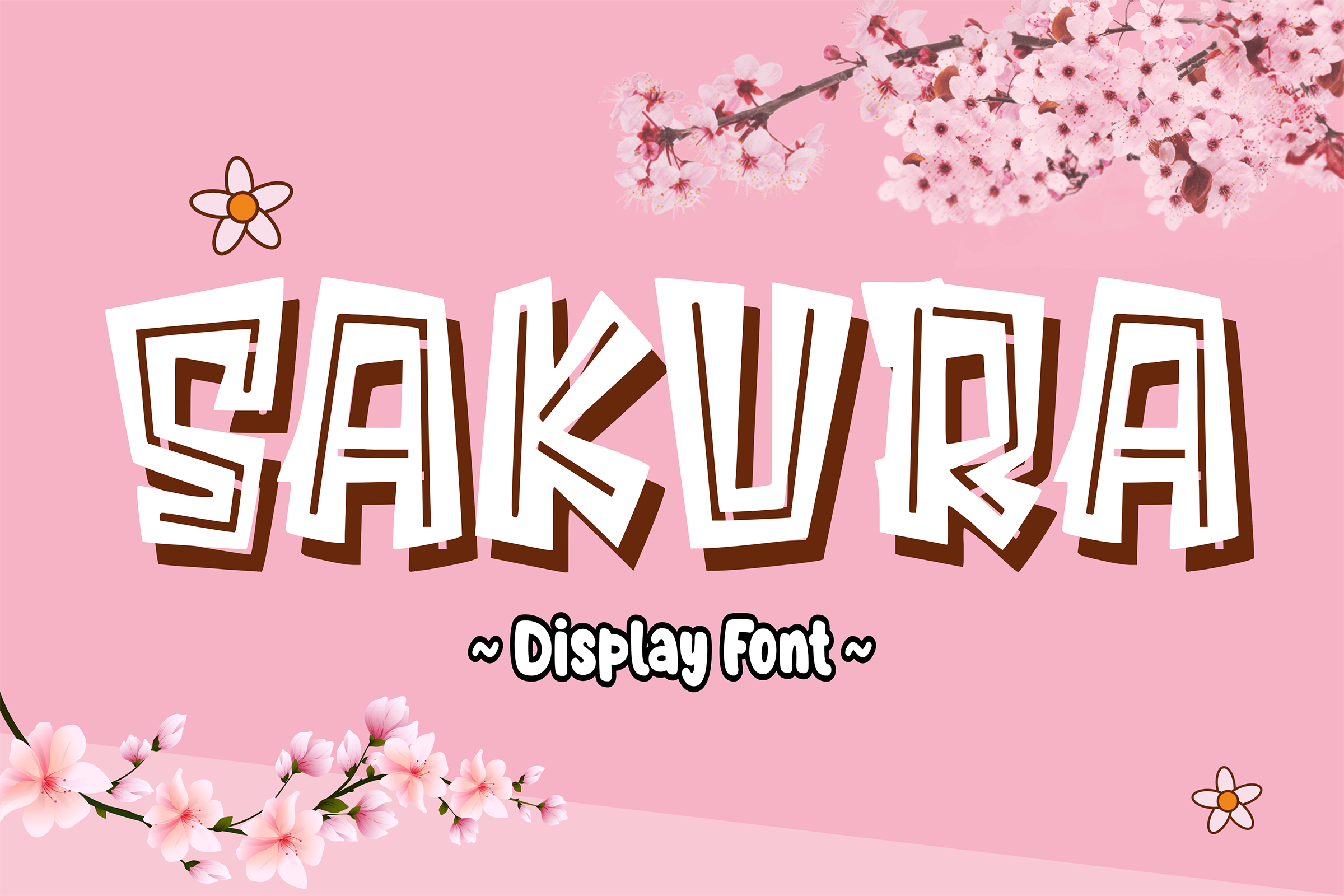
Sakura - Comic FOnt Types
Sakura font is a very attractive display font. Anything written with this font will be instantly recognizable and eye-catching. This font is perfect for comics, anime, online games, cards, Japanese-themed t-shirts, posters, movie titles, interesting social media posts, or anything that requires a Japanese theme.